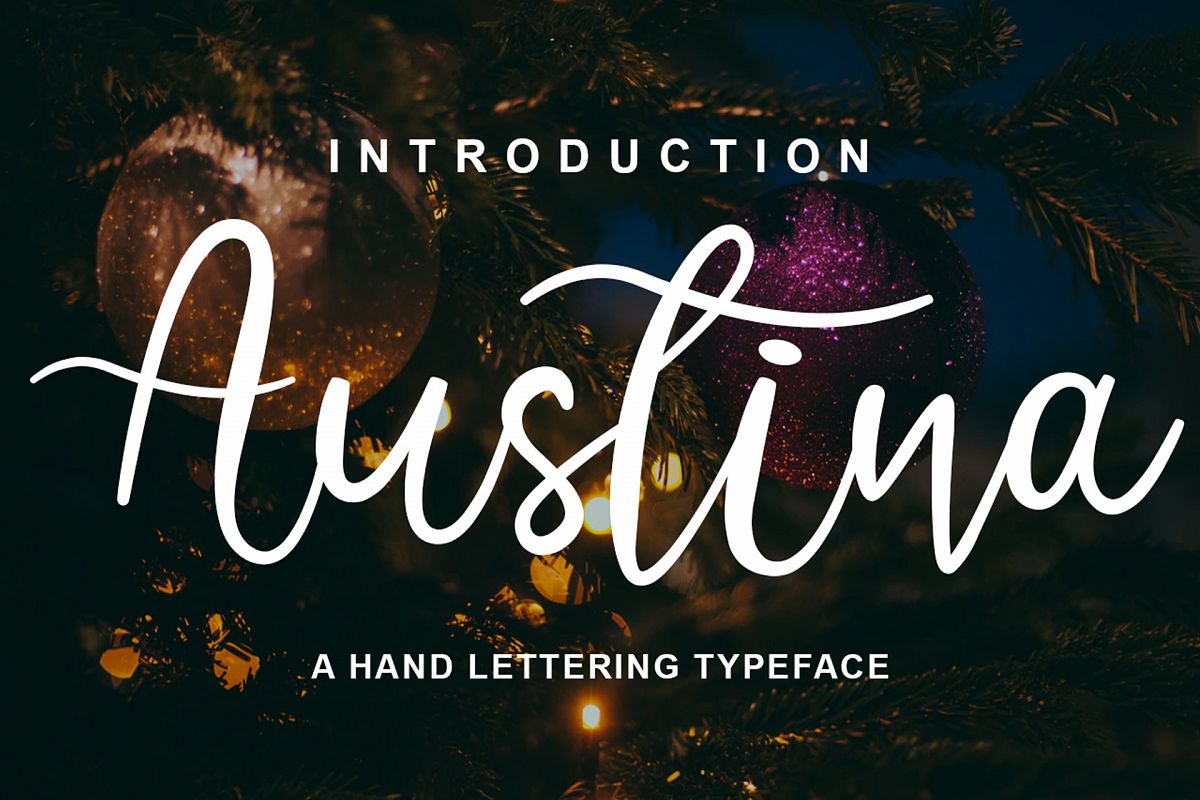
Austina
Introducing: Austina
Script font with smooth handwriting style. Austina is perfect to complete your party, Christmas, Halloween, wedding. not only that austina is also suitable for branding product packaging products, used in business cards, invitation cards, etc. Enough as a stylish text overlay for any background image or anything that requires a sprinkling of elegance.